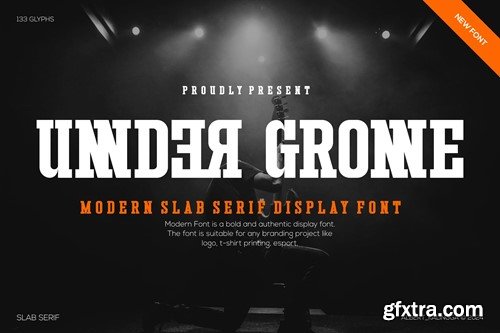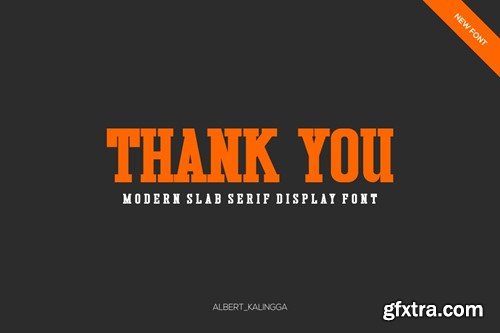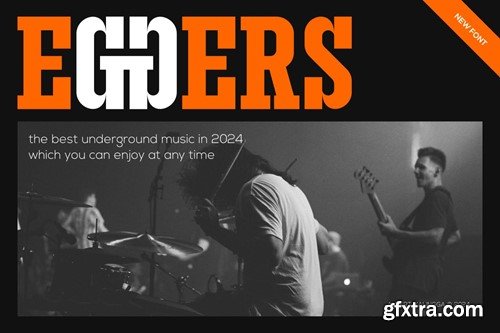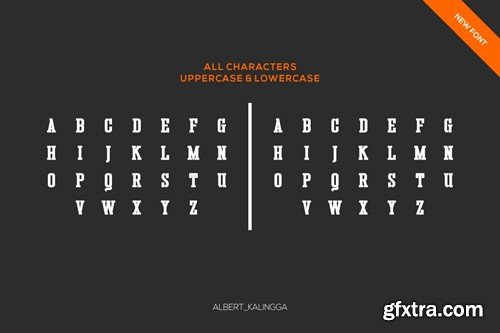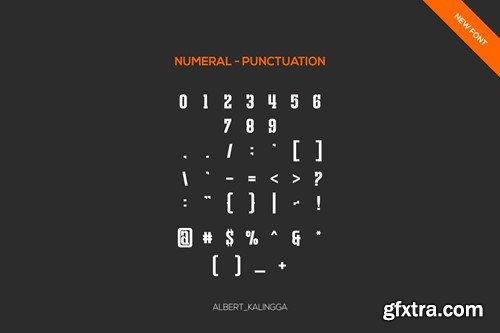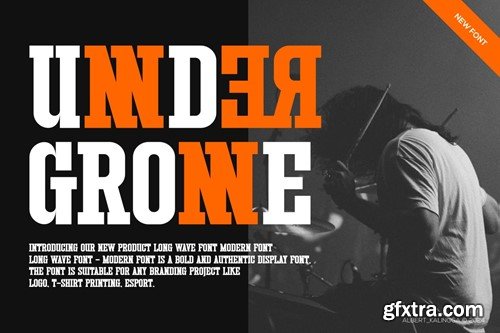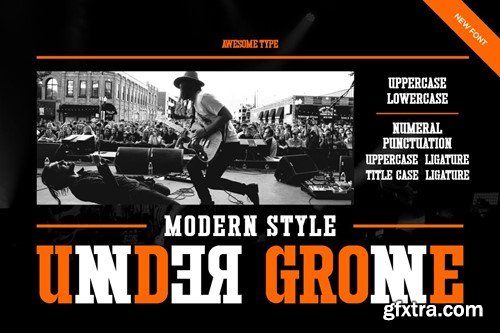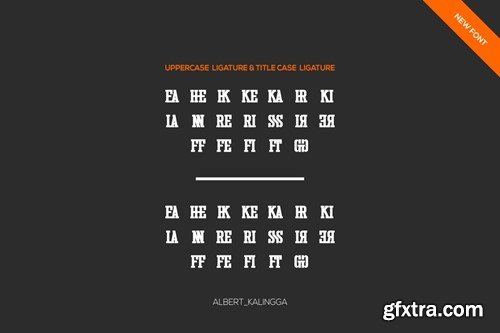
Under Gronne Font MKJLVN5
Unnder Gronne Font
Introducing our new product Unnder Gronne Font - Modern Font is a bold and authentic display font. The font is suitable for any branding project like logo, esport, and many more. outstanding in a wide range of contexts. availlable